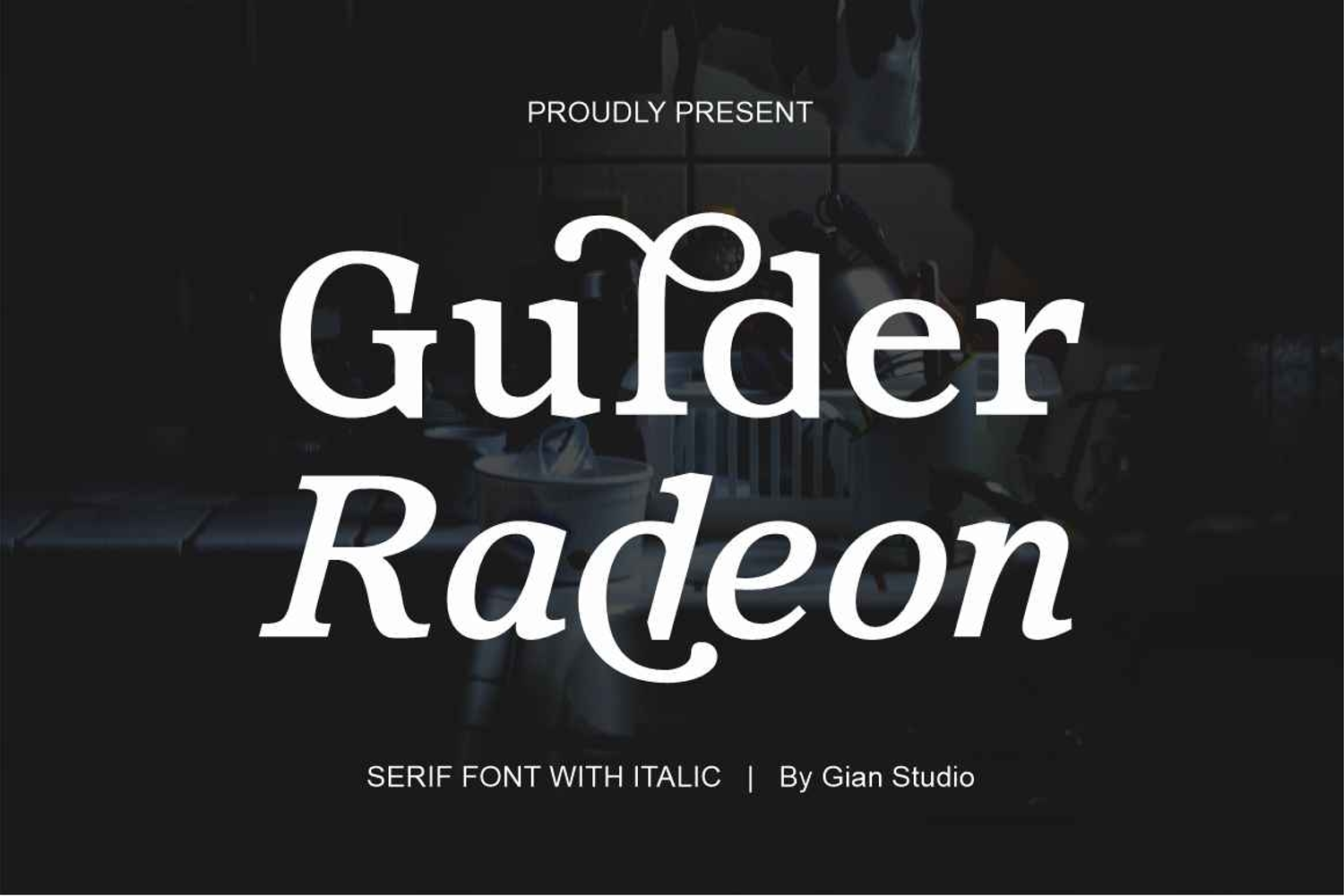
Gulder Radeon
Gulder Radeon is a harmonious and stylish contemporary serif typeface with a classic feel. Includes 2 Fonts, upright and italic, swollen stems, and italics, growing along with the font character. OpenType features allow the application of typography such as ligatures and support for multiple languages.
Gulder Radeon also comes with two versions of Variable Regular and Italic to make it easier for designers to explore and refine beautiful designs, revealing many visual nuances and hidden secrets.
Gulder Radeon is a perfect choice for your various design projects such as editorial design, headlines, branding projects, Logo design, packaging, magazine titles, advertisements, short or long texts, web design, and more.